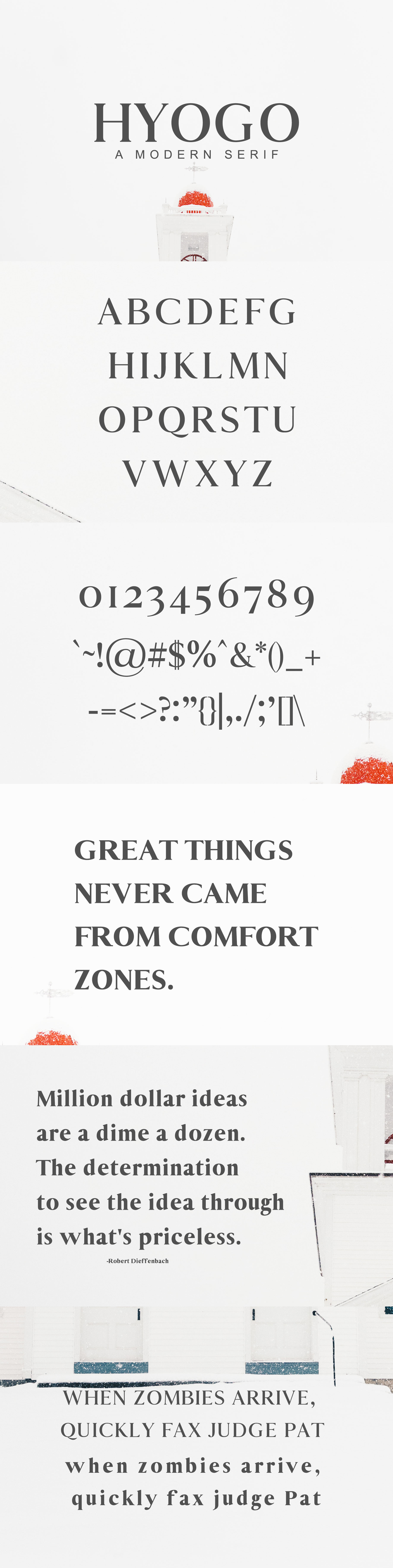
Hyogo A Modern Serif Font Family
Hyogo is a modern serif typeface for mixing some romance and charm to your designs. It comes with 2 weights contains uppercase and lowercase alphabet, numbers, basic punctuation with multilingual support. This font will pair beautifully with the script, signature or handwriting style. Hyogo can be used for headlines, posters, branding, packaging, presentations, logo, quotes, titles, magazines headings, web layouts, advertising, invitations, packaging design, books, and nearly any creative design.
- Font Weight: Regular and Black
Hyogo Font Features:
- Uppercase Letters
- Lowercase Letters
- Non English Characters ( Latin Supplement + Latin Extended A)